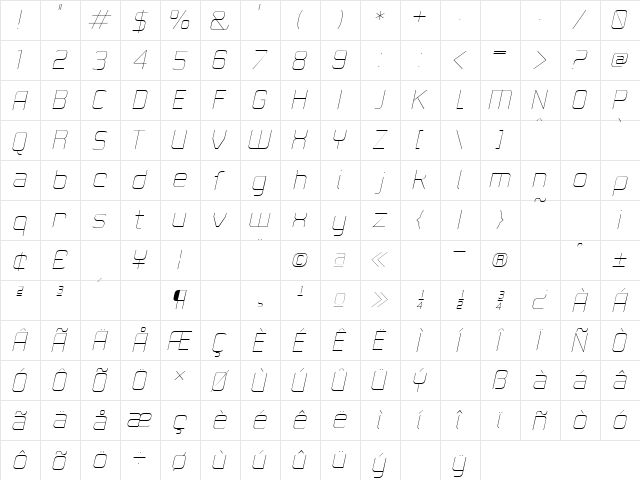
21st SuperFineItalic
Design Context for 21st Typeface
21st offers clean, dependable letterforms without strong stylistic allegiance, making it a practical choice for designers who need flexibility. The slanted form adds forward momentum and visual energy.